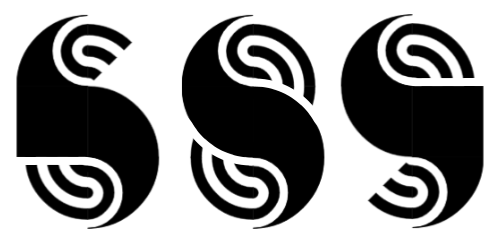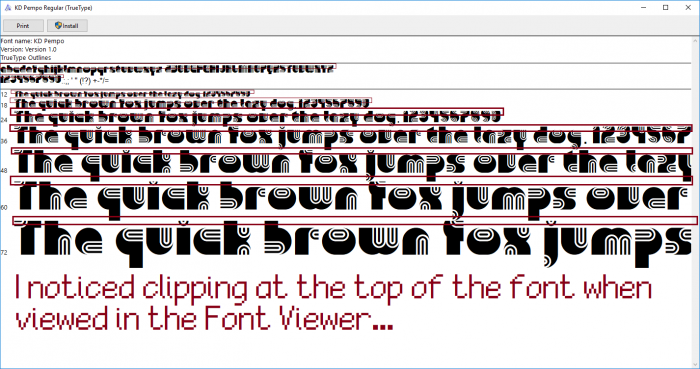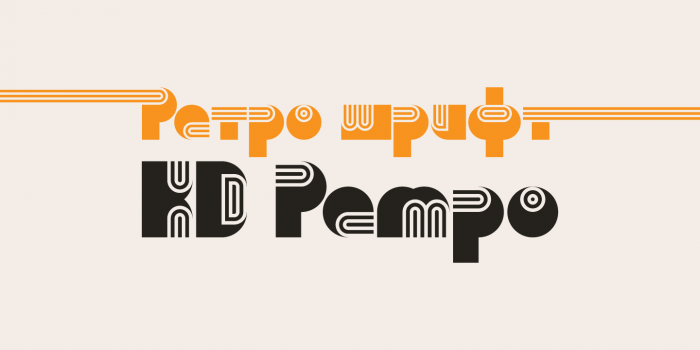
When I was viewing in Windows Font Viewer, I noticed there was clipping at the top... Maybe add a tiny brick that is nudged downwards at the top to prevent that...
I saw your comment on the phone first and thought that those are great solutions! But sitting in front of my computer now I realize why I didn't do them so, cause we don't have those bricks :). But I still manipulated a bit to smth more or less similar to your suggestions.
And the reason I didn't publish it before is because of those little inconsistencies, I forgot now, but that must've been the reason. I remember that not all letters follow the consistent geometry, e.g. "C" looks like it should belong somewhere else. So today I just added numbers and uppercase letter Z, the rest was left as before because I can't quite recall my thinking of that time.
Superb design, psychedelic geometric power!
Cool cool cool!!!
This would've been the icing on the cake imo.
WOW! This uses both the core fontstruct bricks AND the connecting bricks...
When I was viewing in Windows Font Viewer, I noticed there was clipping at the top... Maybe add a tiny brick that is nudged downwards at the top to prevent that...
niiiice I love geometry
I saw your comment on the phone first and thought that those are great solutions! But sitting in front of my computer now I realize why I didn't do them so, cause we don't have those bricks :). But I still manipulated a bit to smth more or less similar to your suggestions.
And the reason I didn't publish it before is because of those little inconsistencies, I forgot now, but that must've been the reason. I remember that not all letters follow the consistent geometry, e.g. "C" looks like it should belong somewhere else. So today I just added numbers and uppercase letter Z, the rest was left as before because I can't quite recall my thinking of that time.
Leading should be fixed now.
Inventive comination of bricks and a funky font!
Love this font.
Nice retro style
The cyrillics are cool...
Unique font for design
Don't forget D as well...